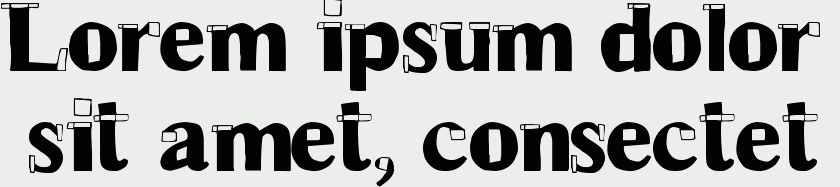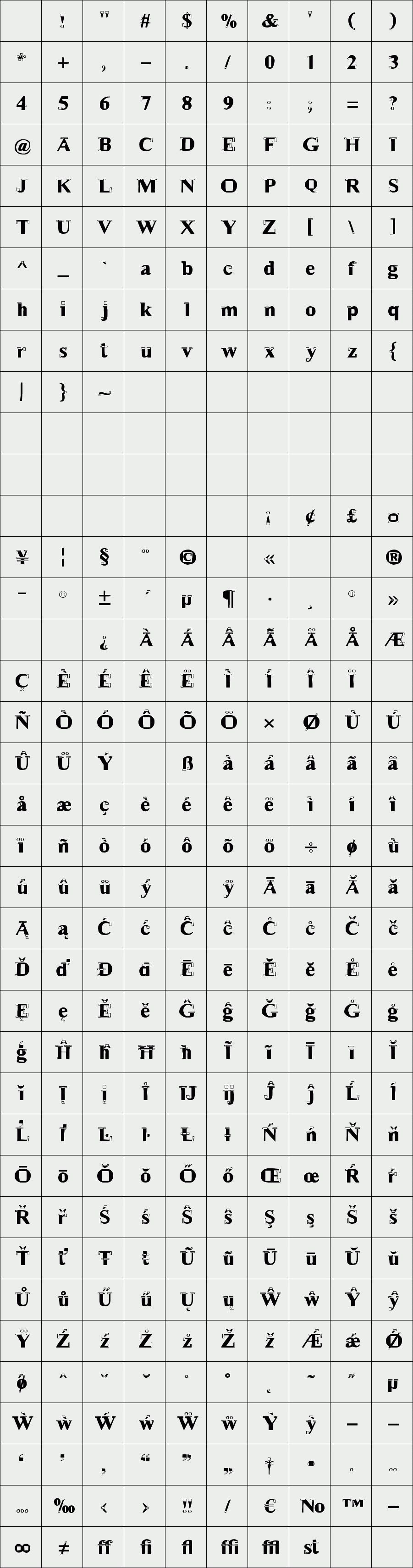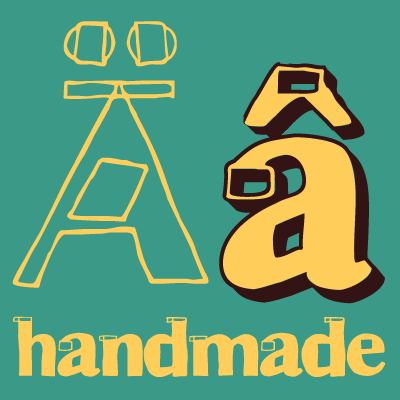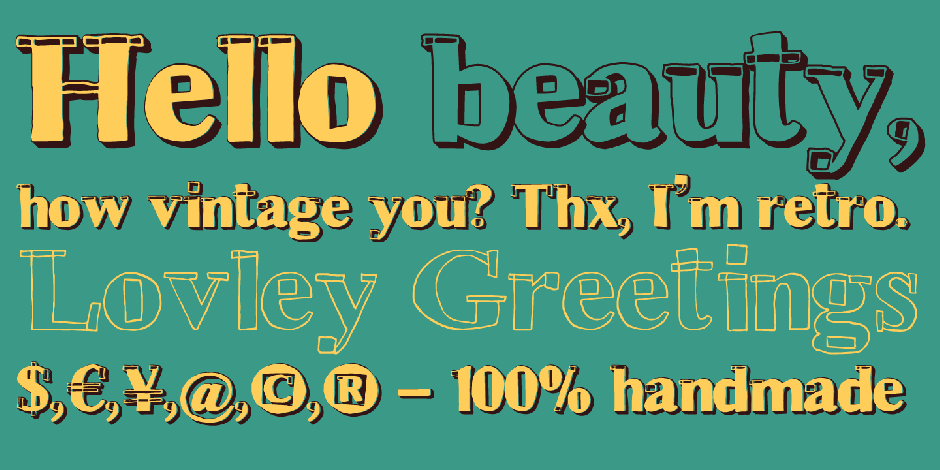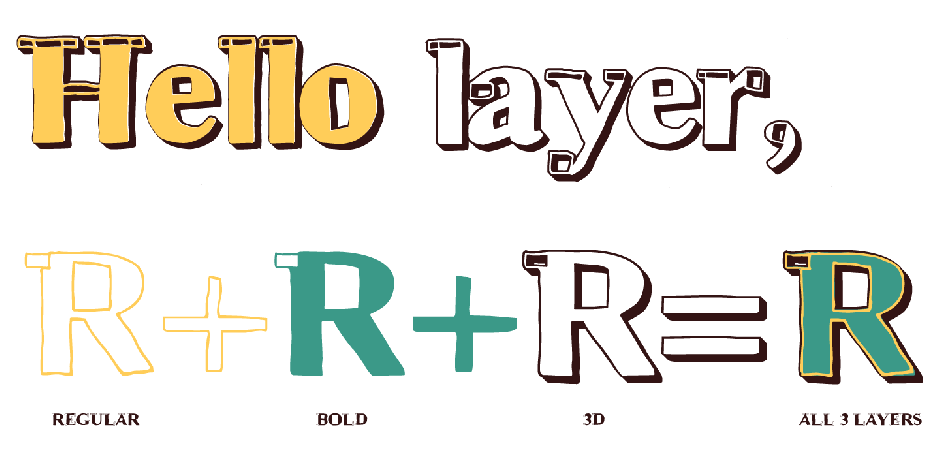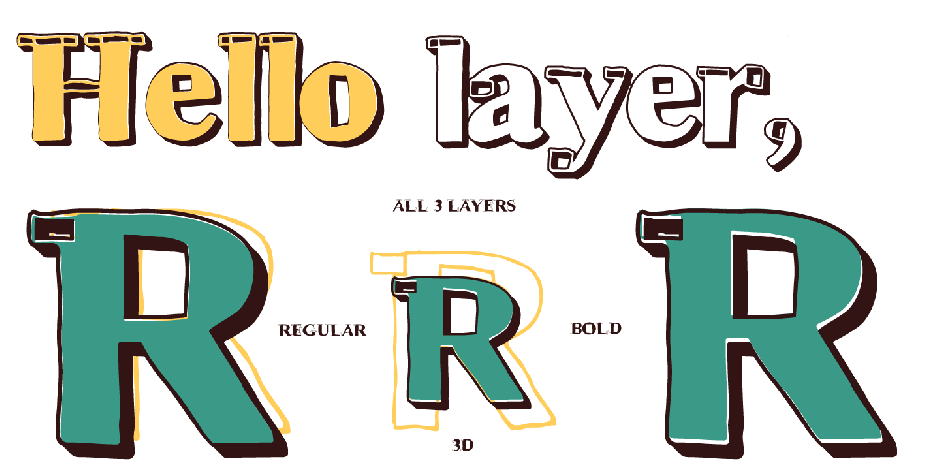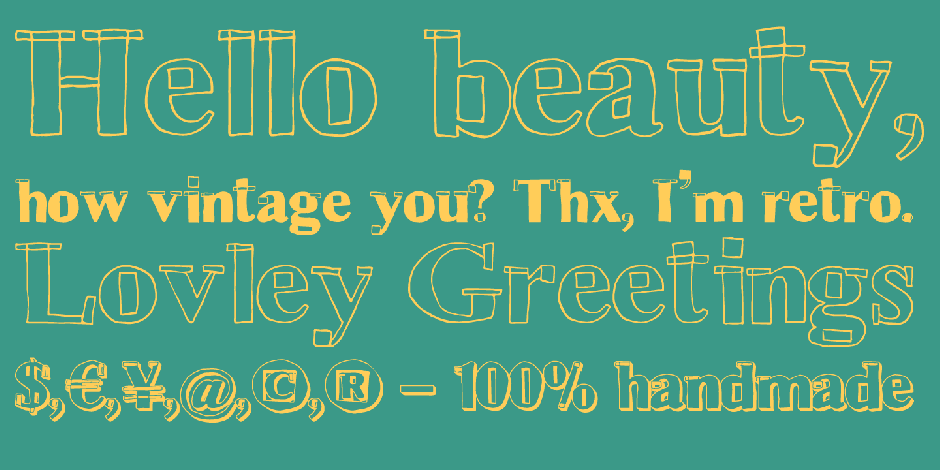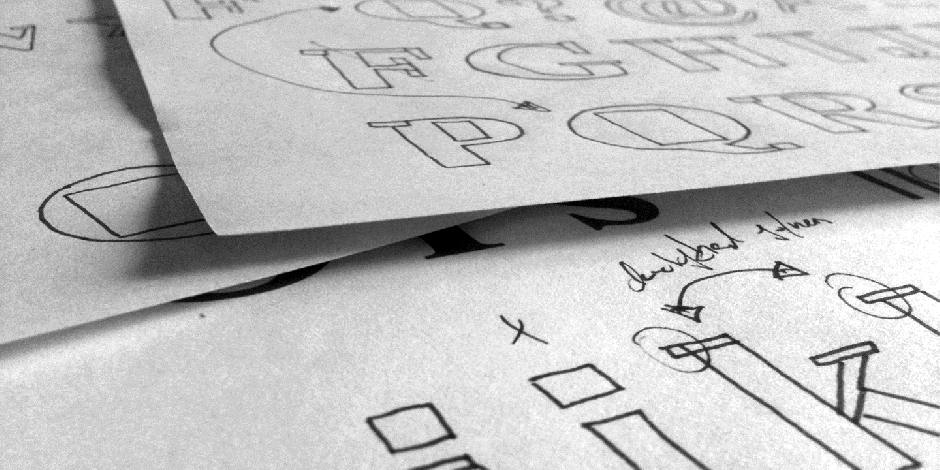
Hand Retro Sketch Times
/ Hand Retro Sketch Times_bold
CHARACTERISTICS
A serif typeface with modern and fancy handmade haptics. Take the 3 layers for unique designs and create many different variations. From light and warm outline (take the regular style), about heavy and pithy filling (take the bold style) till fancy and modern 3d shadows (take the 3d style). Handemade sketched for display size.
APPLICATION AREA
The vintage but modern, the raw but friendly serif font »Hand Retro Sketch Times« with many language support (for a display font) would look good at headlines. Editorial Design (Magazine or Fanzine) or Webdesign (Headline Webfont for your website), party flyer, movie poster, music covers or webbanner. And and and...
TECHNICAL SPECIFICATIONS
Headline Font | Display Font | Serif Layer Font »Hand Retro Sketch Times«. OpenType Font with 341 glyphs, alternative letters and ligatures (with accents & €) & 3 styles & 3 layers (regular, bold, 3d)
A serif typeface with modern and fancy handmade haptics. Take the 3 layers for unique designs and create many different variations. From light and warm outline (take the regular style), about heavy and pithy filling (take the bold style) till fancy and modern 3d shadows (take the 3d style). Handemade sketched for display size.
APPLICATION AREA
The vintage but modern, the raw but friendly serif font »Hand Retro Sketch Times« with many language support (for a display font) would look good at headlines. Editorial Design (Magazine or Fanzine) or Webdesign (Headline Webfont for your website), party flyer, movie poster, music covers or webbanner. And and and...
TECHNICAL SPECIFICATIONS
Headline Font | Display Font | Serif Layer Font »Hand Retro Sketch Times«. OpenType Font with 341 glyphs, alternative letters and ligatures (with accents & €) & 3 styles & 3 layers (regular, bold, 3d)
Designer: Typo Graphic Design